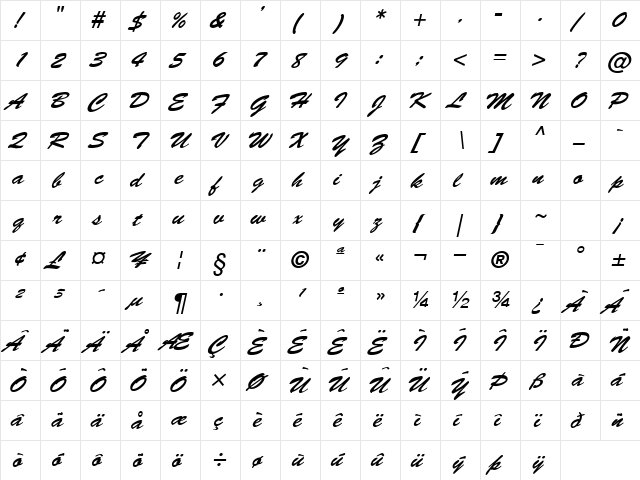
Banty Italic
Design Context for Banty Typeface
Banty is a composed and adaptable typeface that performs quietly and consistently across a wide range of design contexts. The slanted form adds forward momentum and visual energy.
Pro Tip: Try Banty for annotation and caption copy alongside an upright companion — the contrast in angle creates a dynamic but ordered typographic system.